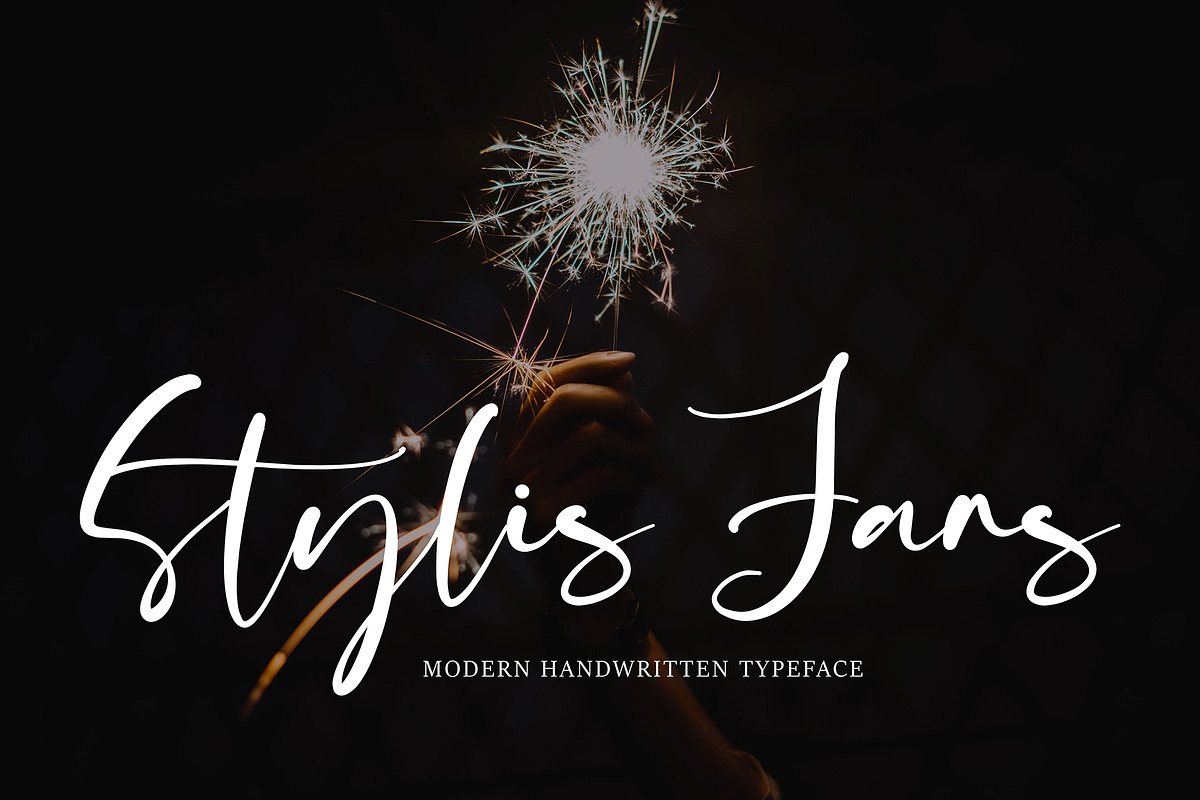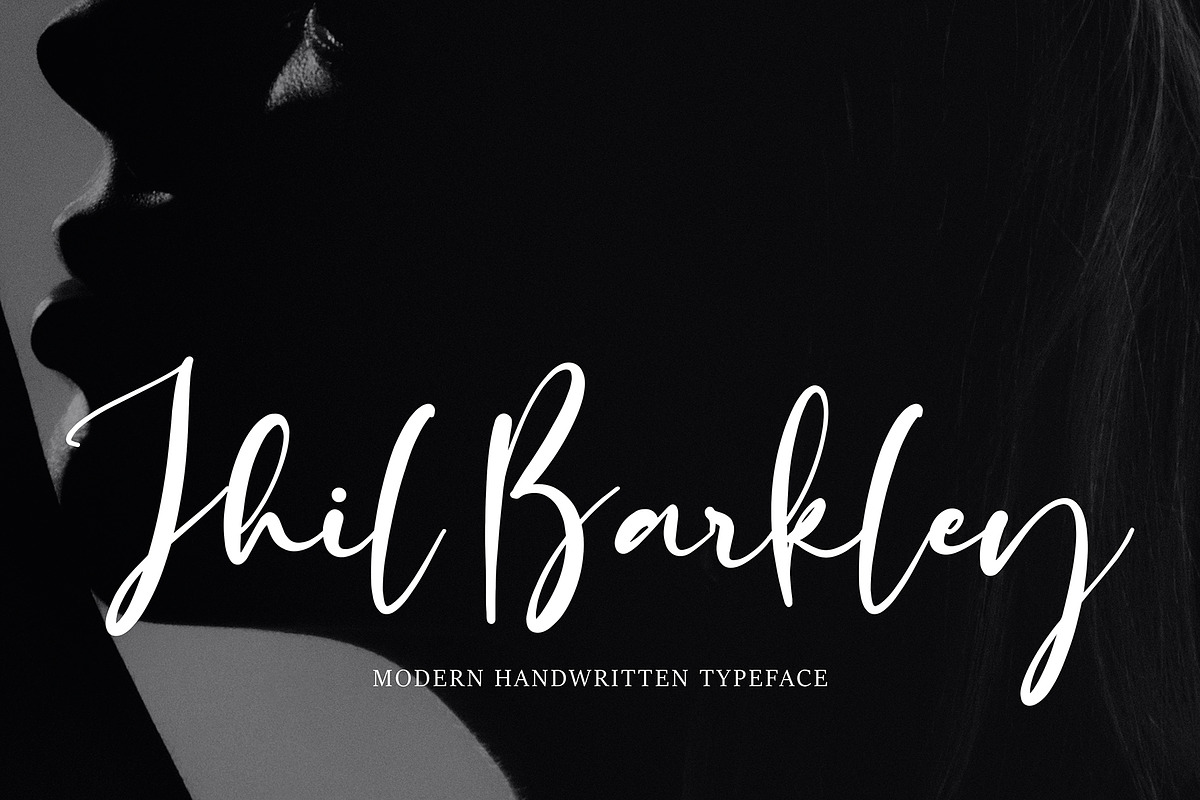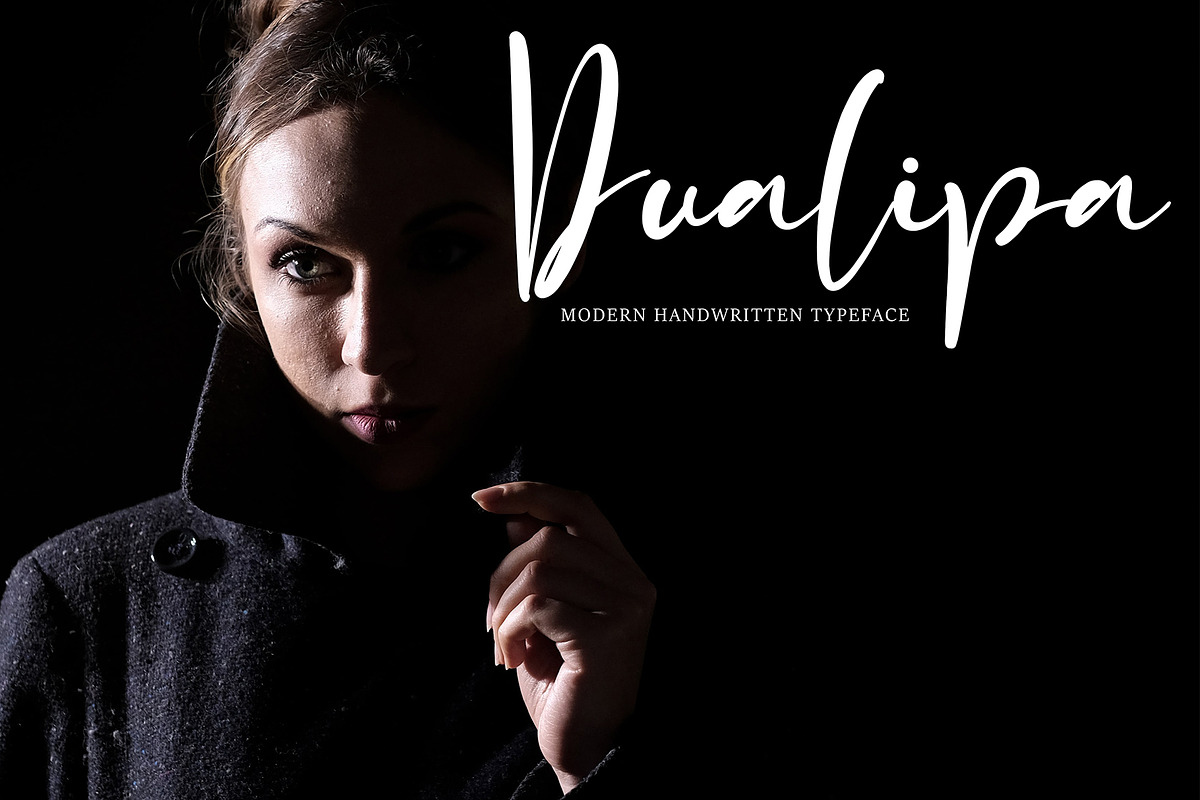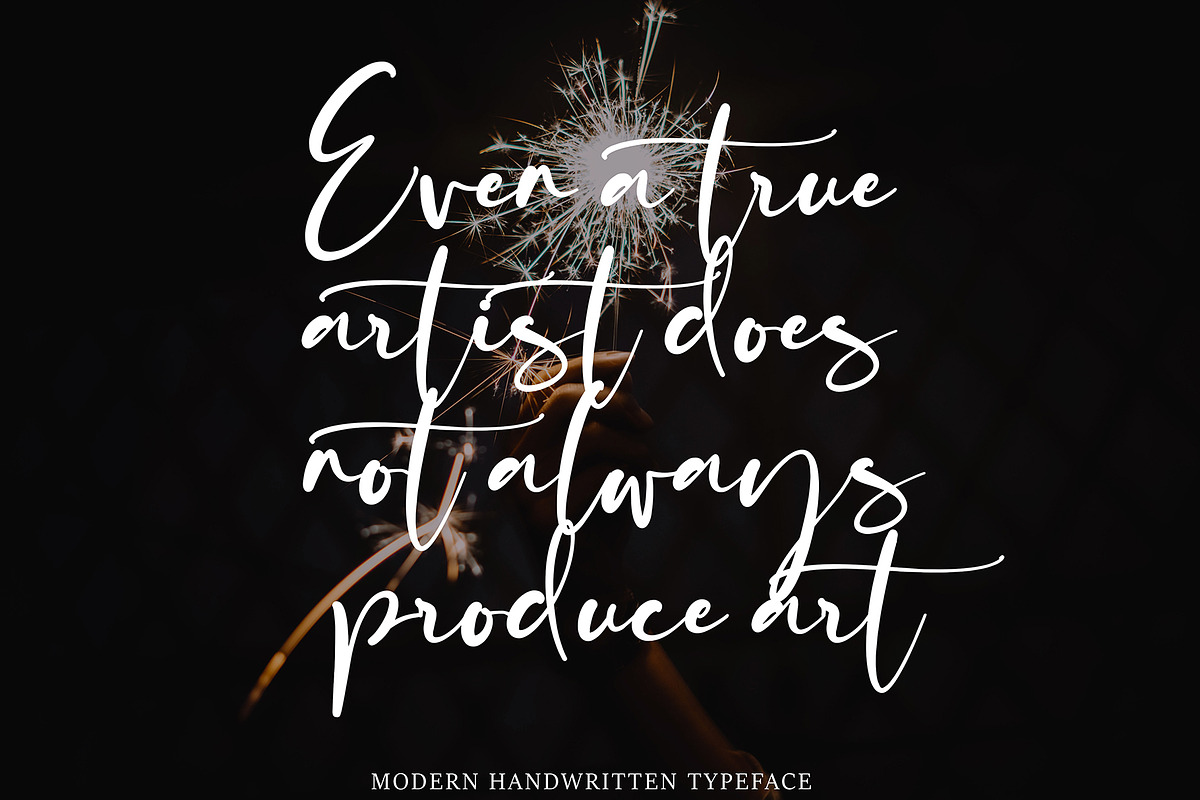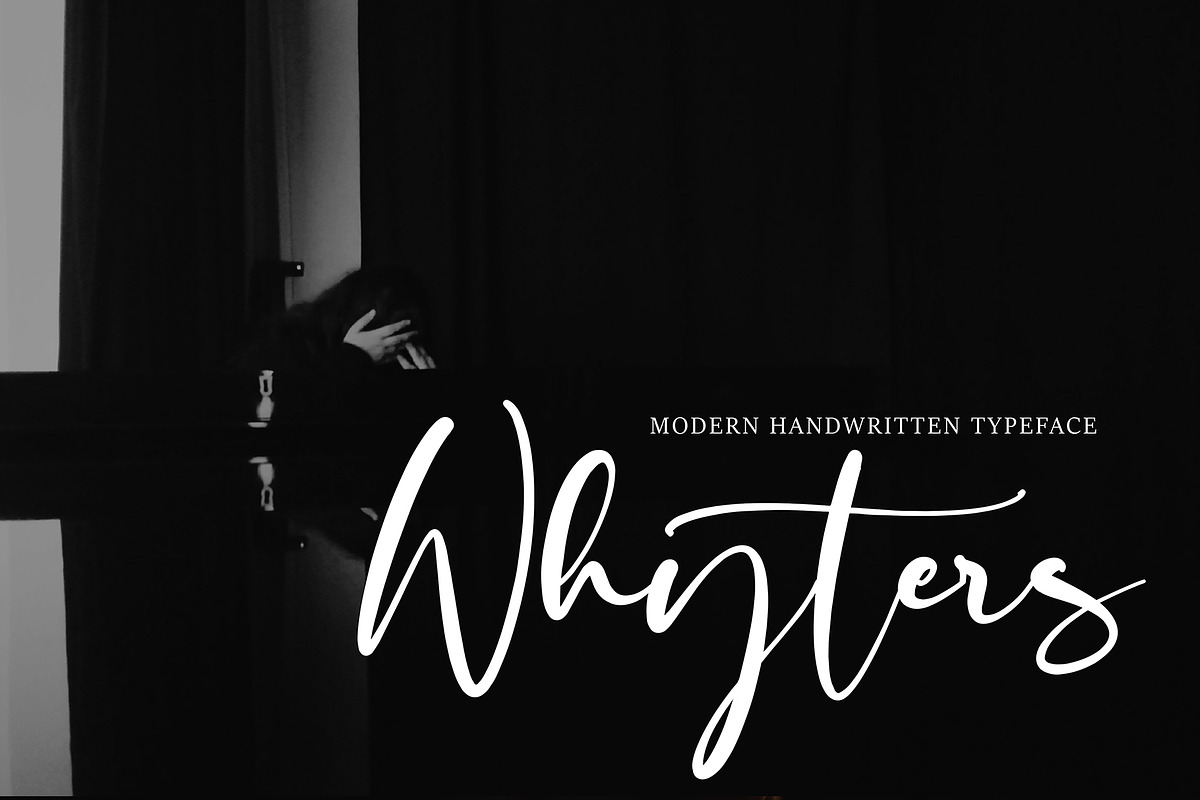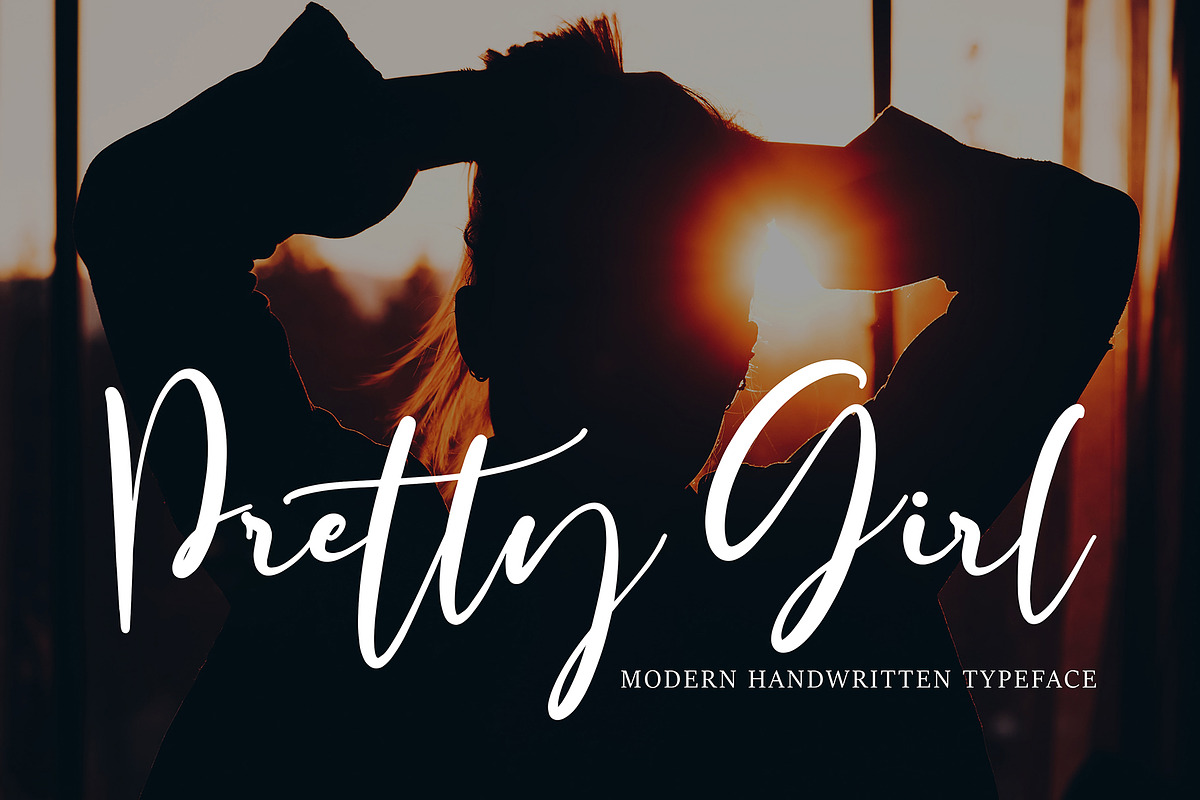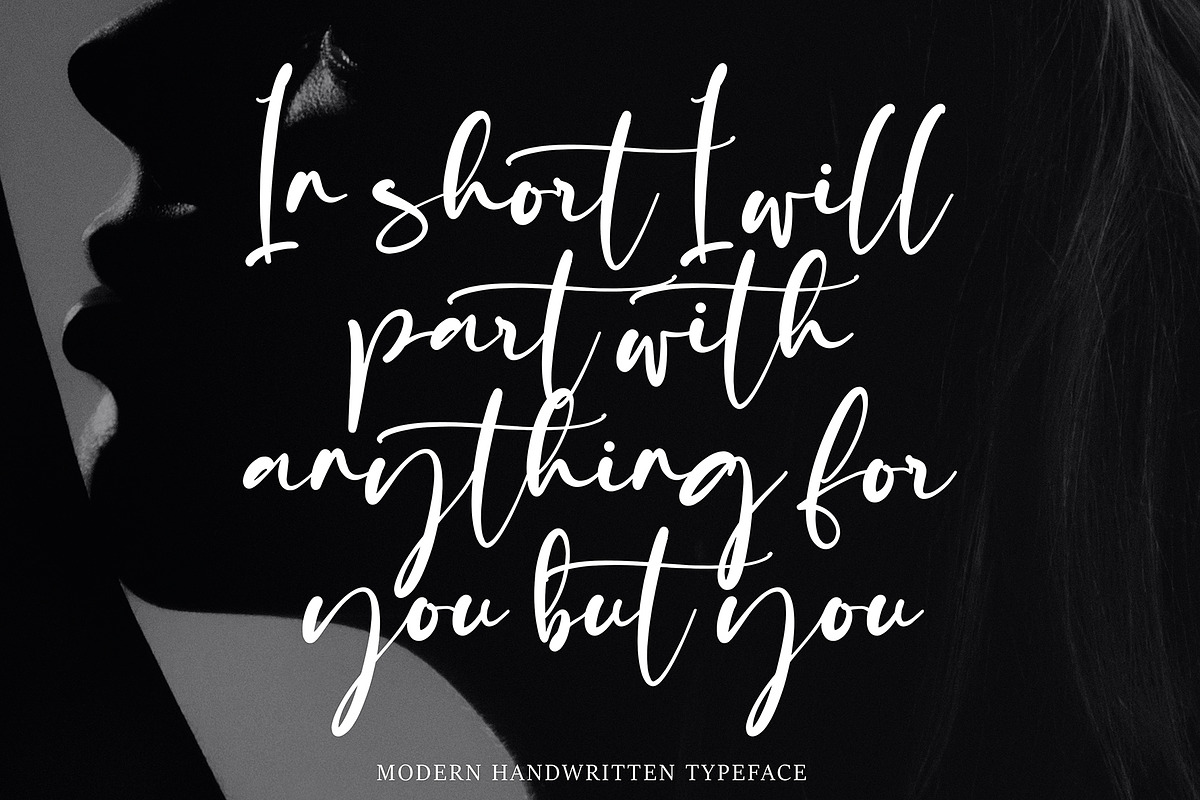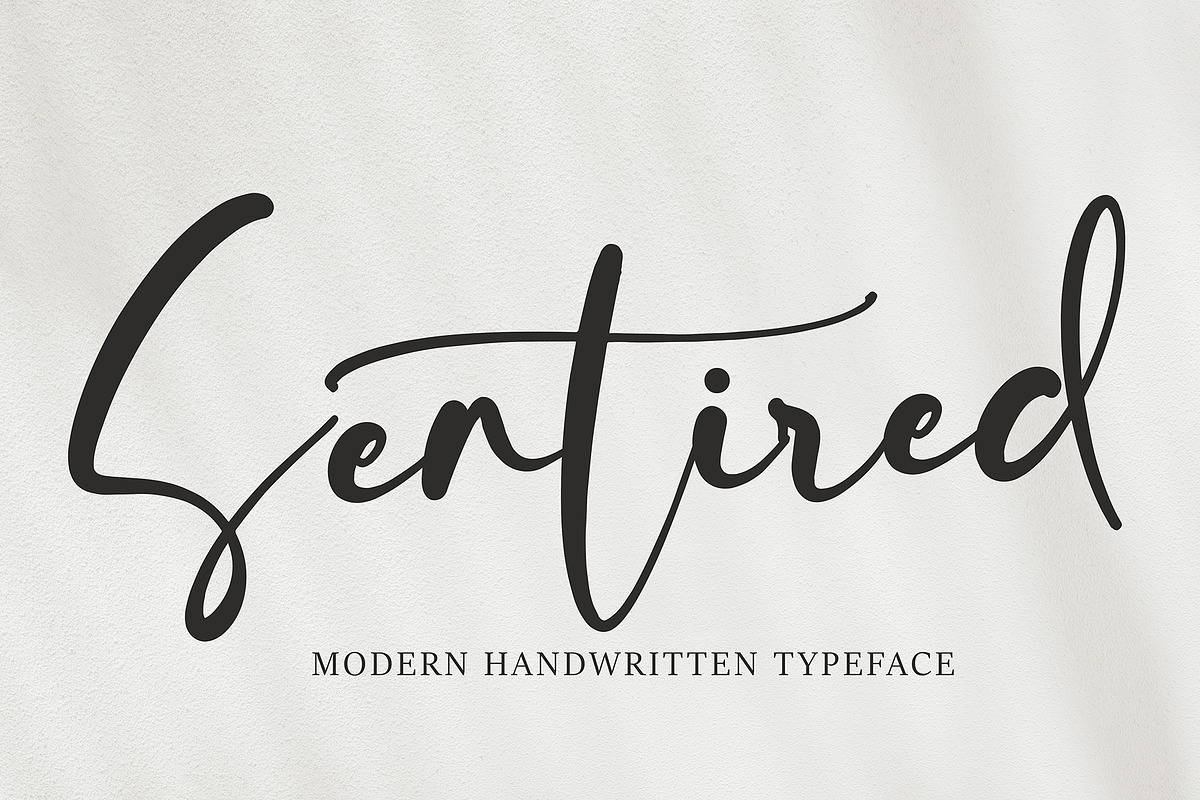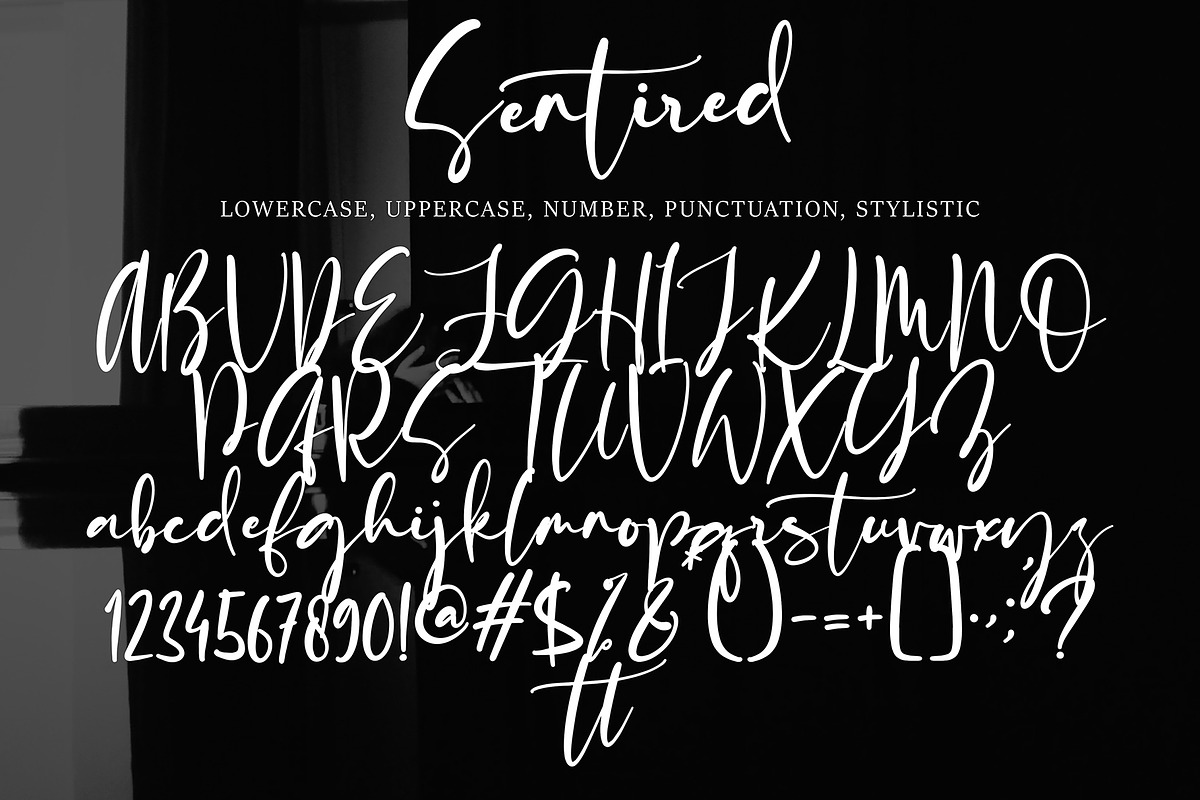
Sentired
Sentired font with new style, this font will perfect for many different project ex: quotes, logo, blog header, poster, banding, letter, invitation, stationery, etc...